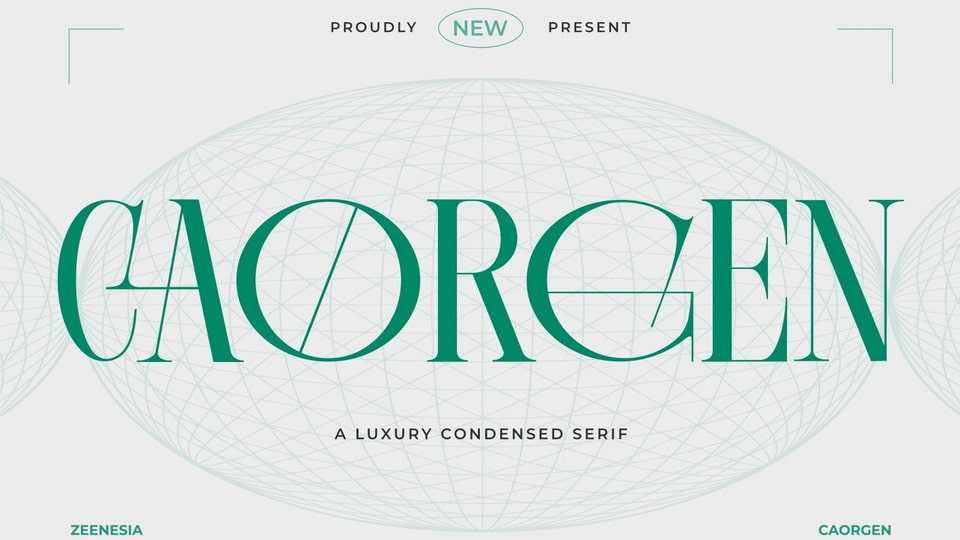
Download Caorgen font, a stylish and modern serif typeface. Its unique personality and charm make Caorgen font the perfect choice for creating fashionable designs.
Designer: Zeenesia Studio